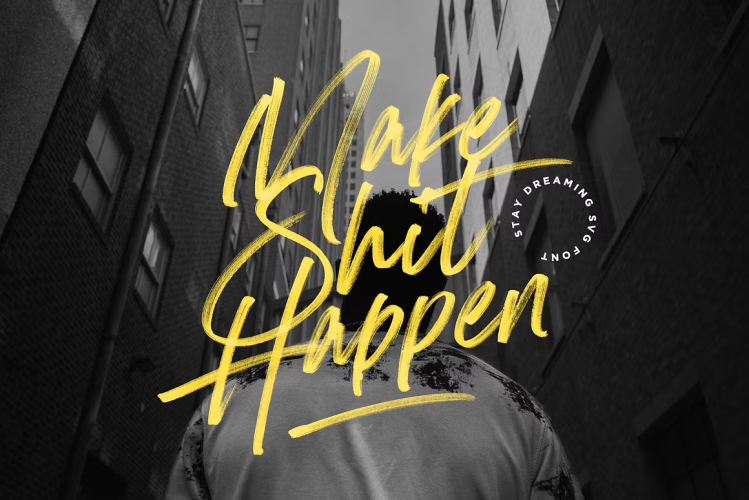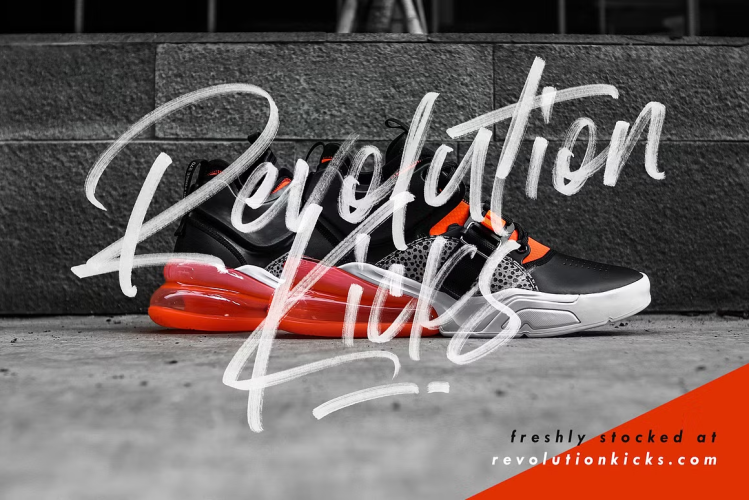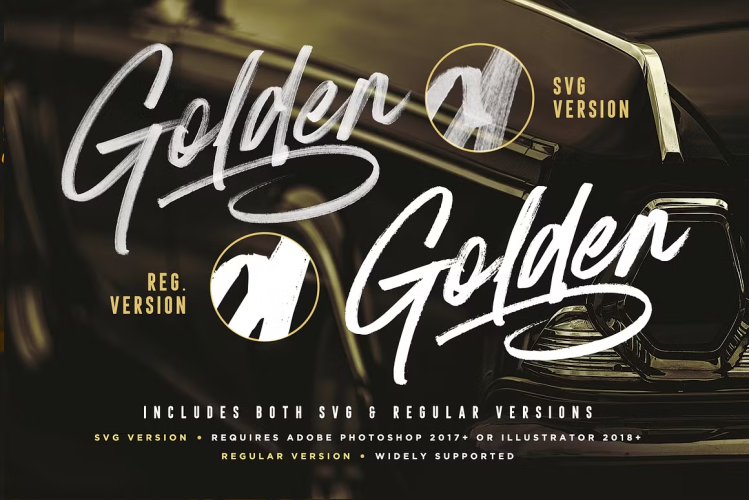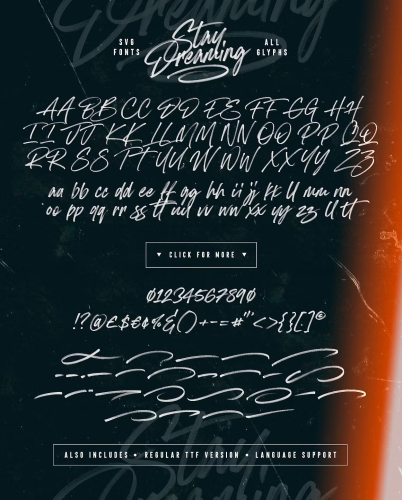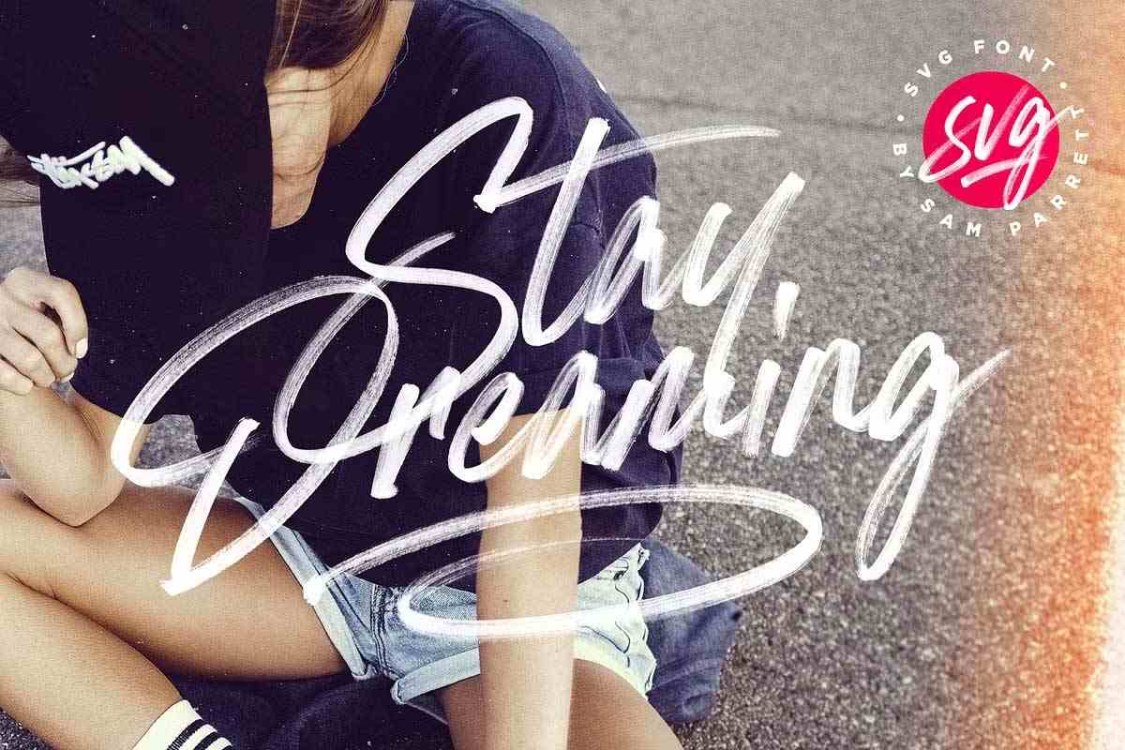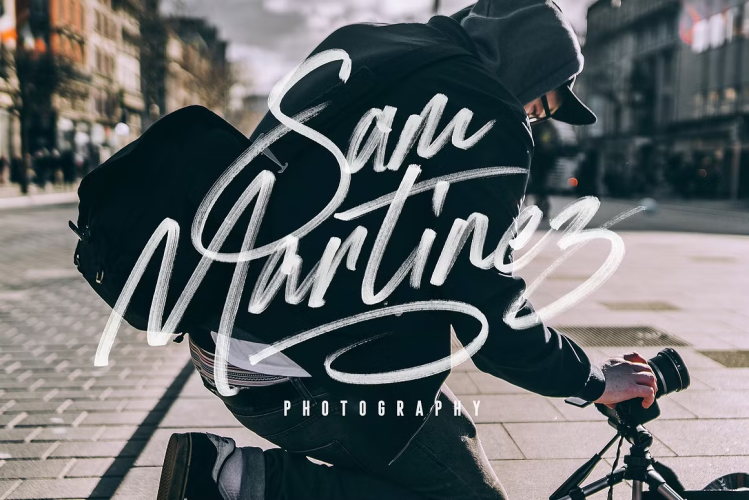
Stay Dreaming Font
Introducing Stay Dreaming SVG Font! This expressive script font has a fast flow and dry textures, perfect for injecting confidence and a custom-made style into your design project. Stay Dreaming is a font that comes with a lot of extra features.
It includes a complete set of alternate characters in a script font, as well as a high-resolution SVG version with extra marker pen textures. You will also get a set of 26 swashes that are perfect for underlining the script font and adding a unique, customized touch to your text.
Stay Dreaming Font
A fast-flowing & expressive textured script font. Use this version if you need the Font in a traditional vector format but still maintain an authentic rough hand-made finish to its edges.
Stay Dreaming SVG Font
Use this version of the script font to re-create stunning hand-lettering with high-definition marker-pen textures, entirely built into the Font as a transparency. Requires Photoshop CC 2017 or Illustrator CC 2018 (or newer).
Stay Dreaming Alternates
Stay Dreaming & Stay Dreaming SVG both include an ‘Alt’ version, replacing all script characters with a completely new set. If you want to avoid letters looking the same each time to recreate custom lettering or try a different word shape, switch to the ‘Alt’ fonts for an additional layout option.
Stay Dreaming Font is a Script And Handwritten font that brings a professional and versatile look to your projects. Introducing Stay Dreaming SVG Font!.